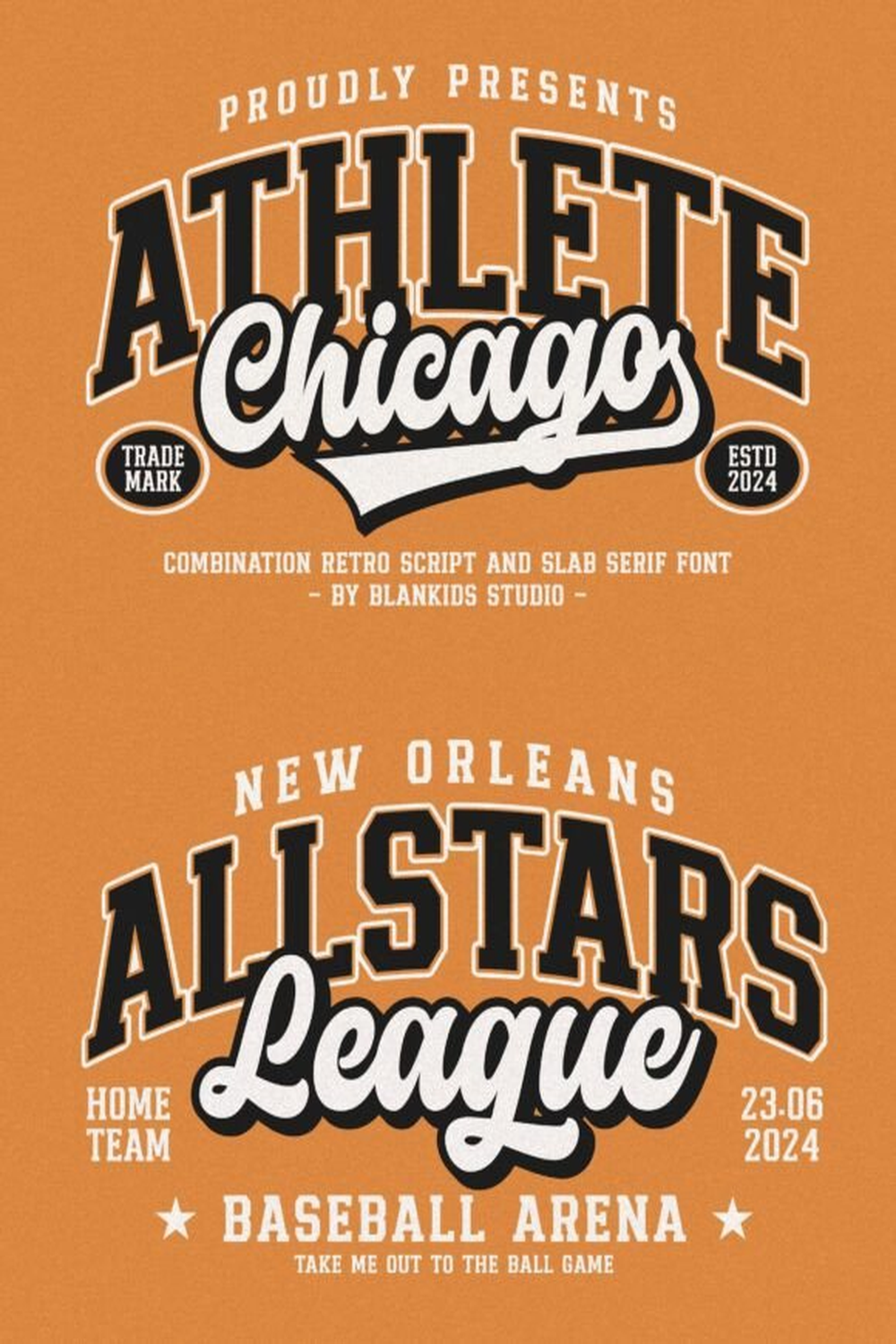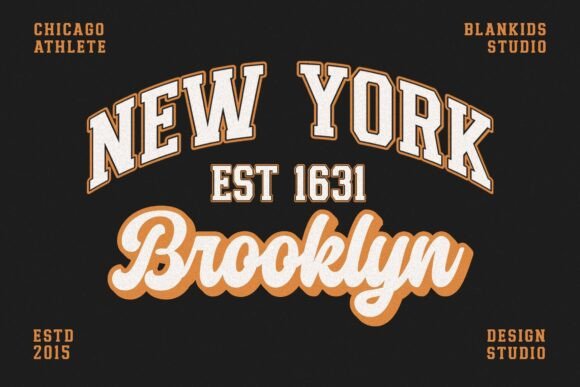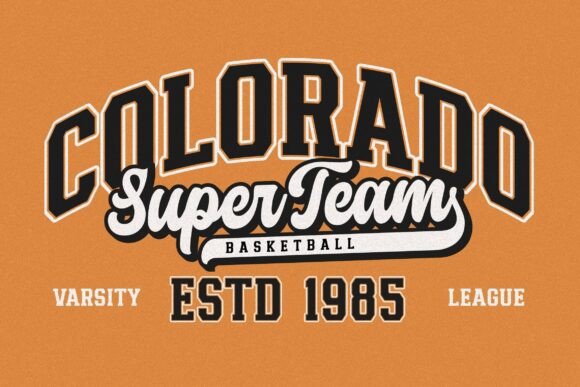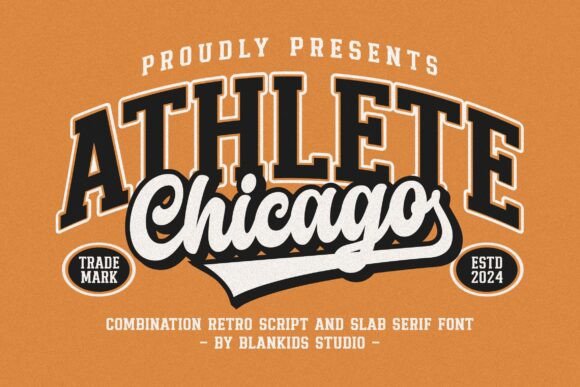
Chicago Athlete Font: Retro Sport Branding & Logo Design
About the Chicago Athlete Font
Crafted with precision, the Chicago Athlete Font is ready to bring your ideas to life. Chicago Athlete a retro sporty font combination is made for any professional project branding, such as logotype, watermarks, posters, branding, promotions, product packaging, etc. Every letter has a retro sporty and varsity-style design. This font comes in 4 font combinations.
Chicago Athlete font includes a full set of retro sporty uppercase and lowercase letters, numerals, and punctuation. This font has a retro sporty style. See the previews above to get some inspiration on how to use them. Happy designing!
Chicago Athlete Font Usage Examples
Chicago Athlete Font Example